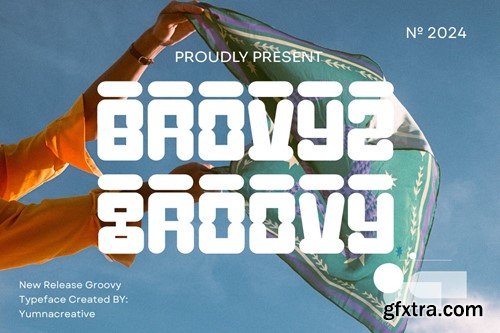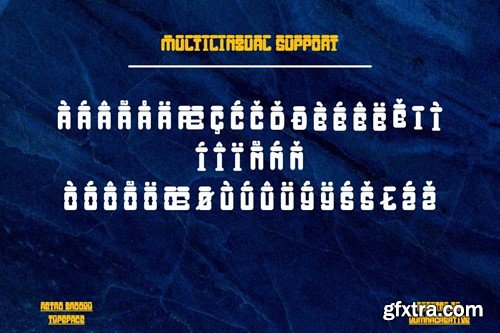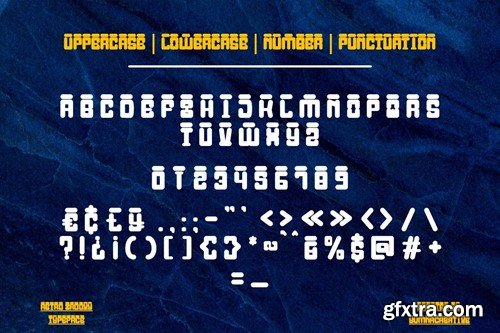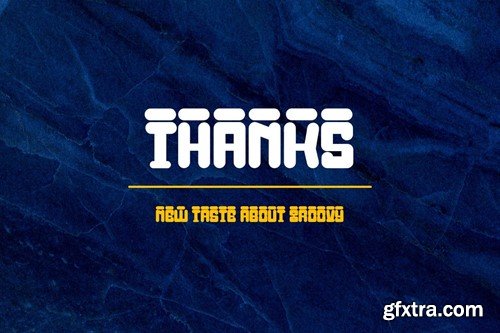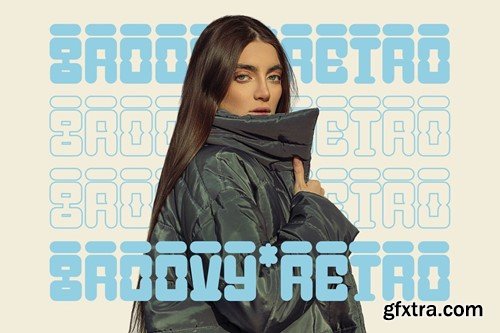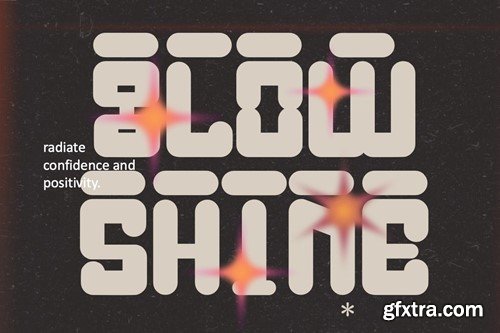
Brovyz Groovy - Groovy Font AQ9V8CG
Introducing Brovyz Groovy - Groovy Font This Font is a delicate, elegant and flowing handwritten font. It has beautiful and well as a unique blend of ligatures a letter, so that the authors compose it with a and little swirly embedding, so that a modern font is formed and ready to make a statement by adding elegant and unique flair to your next design project. Add it to your most creative ideas and notice how it makes them come alive! FEATURES FILES INCLUDED Got any questions? Drop me a line and I'll be happy to answer!